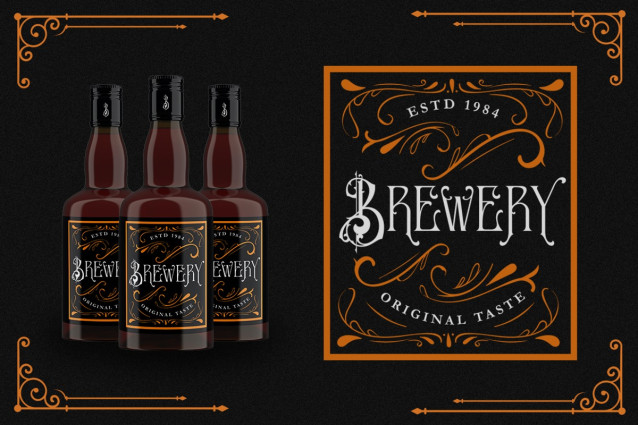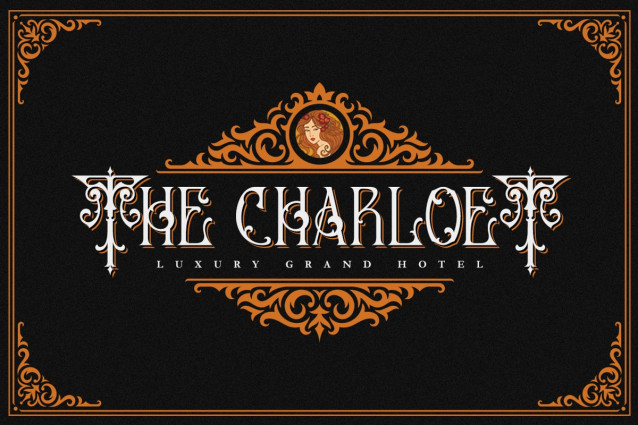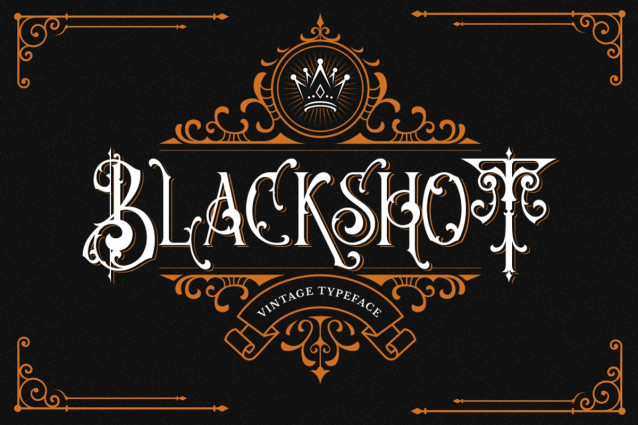
Blackshot Blackletter Font
Blackshot Blackletter Font is an incredibly unique and distinct blackletter font. It will add a unique touch to your designs. Use it for tattoo designs, logos, posters, book covers, albums and more!